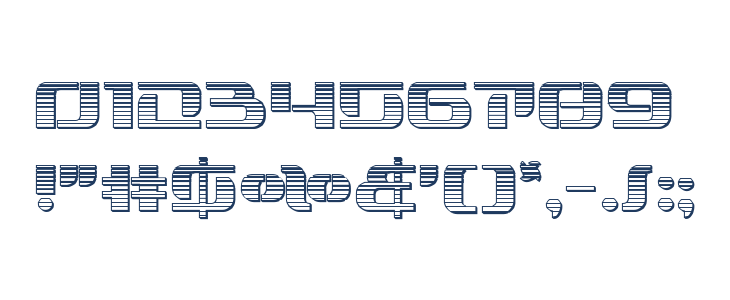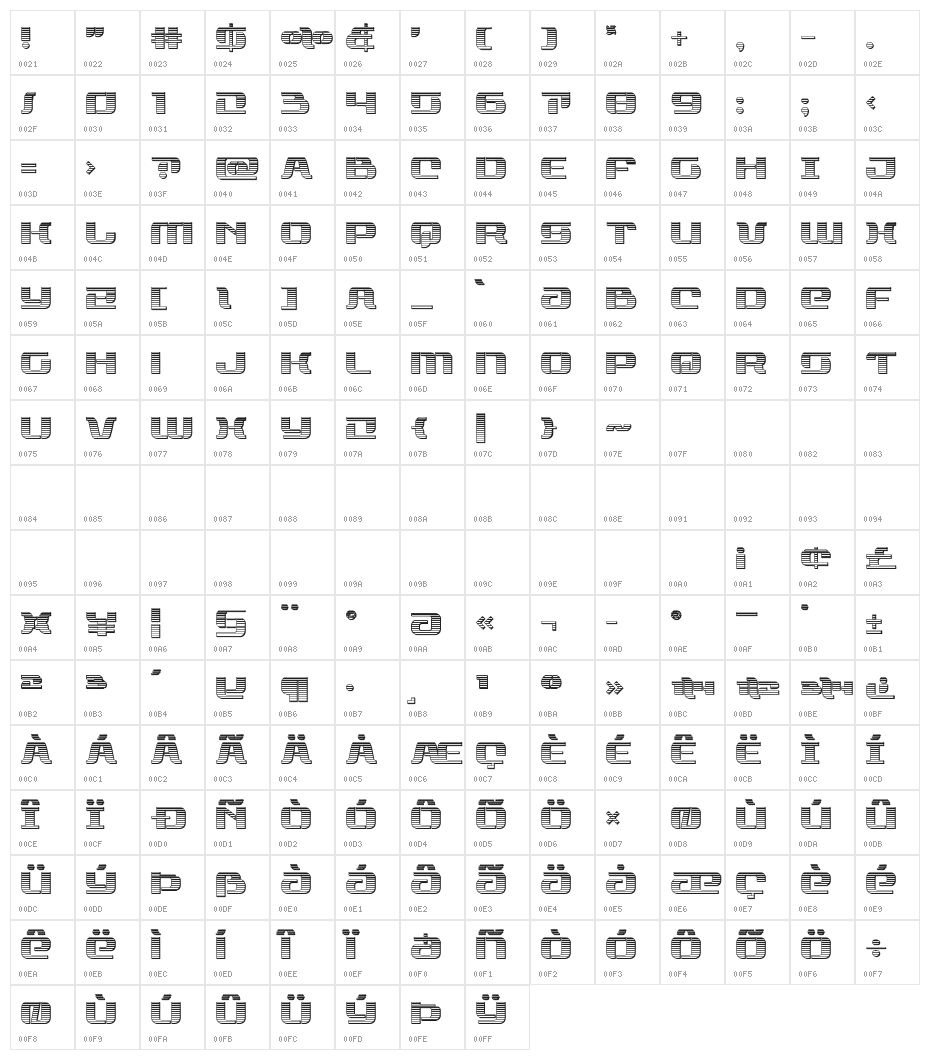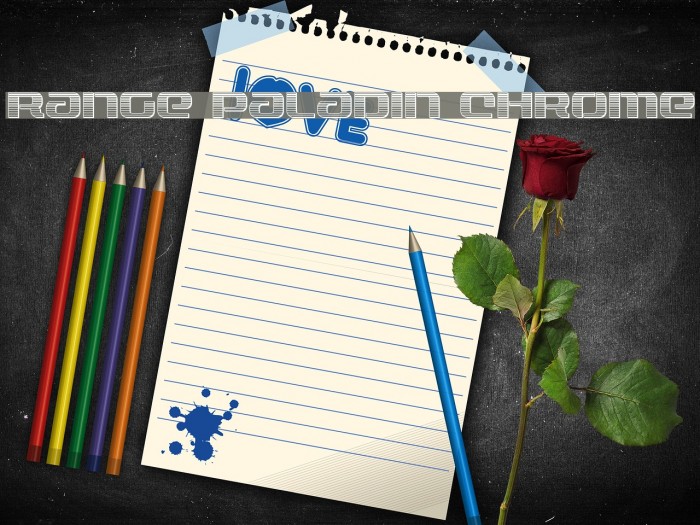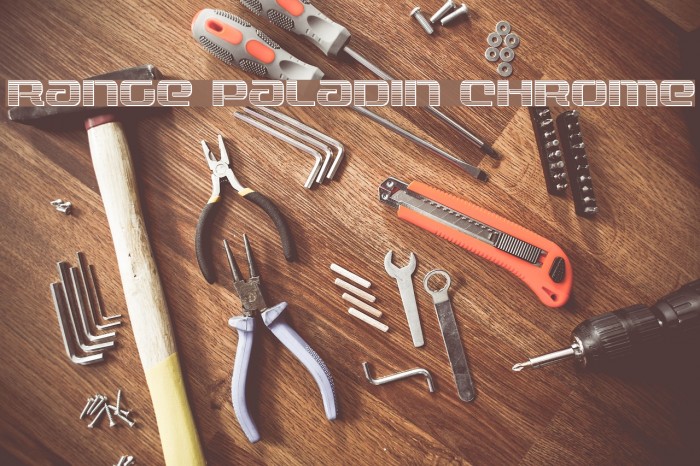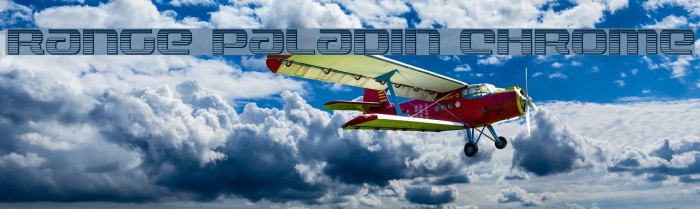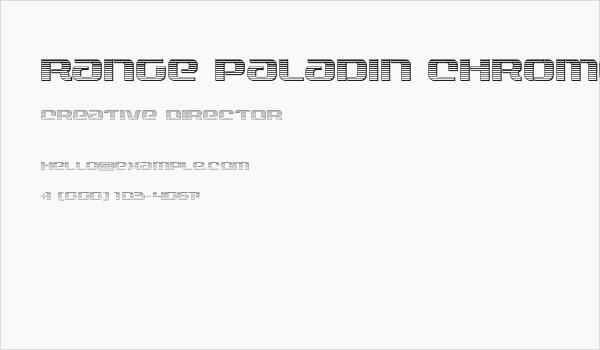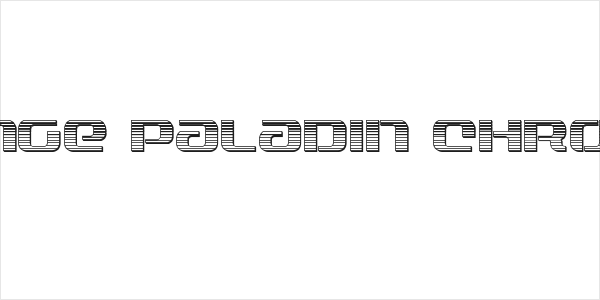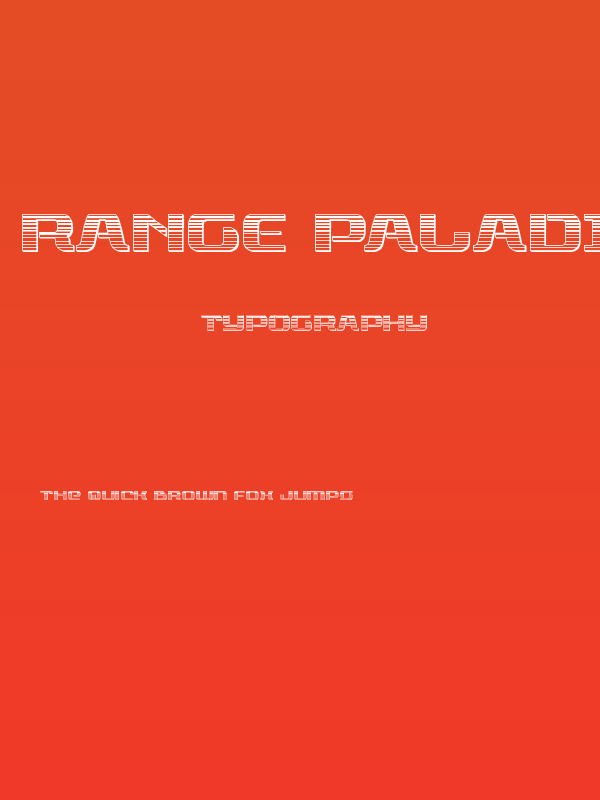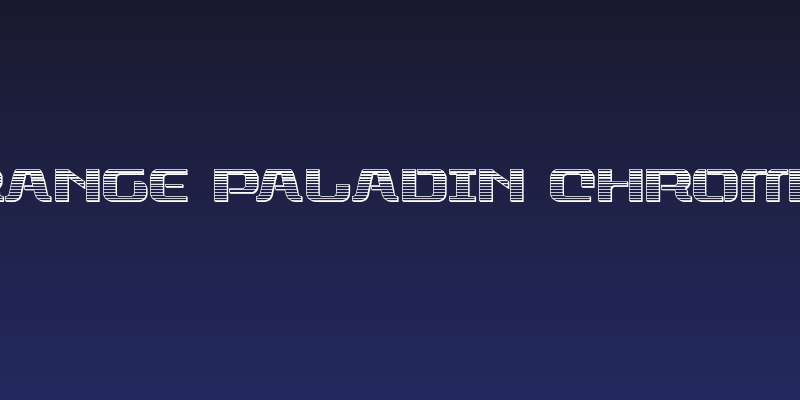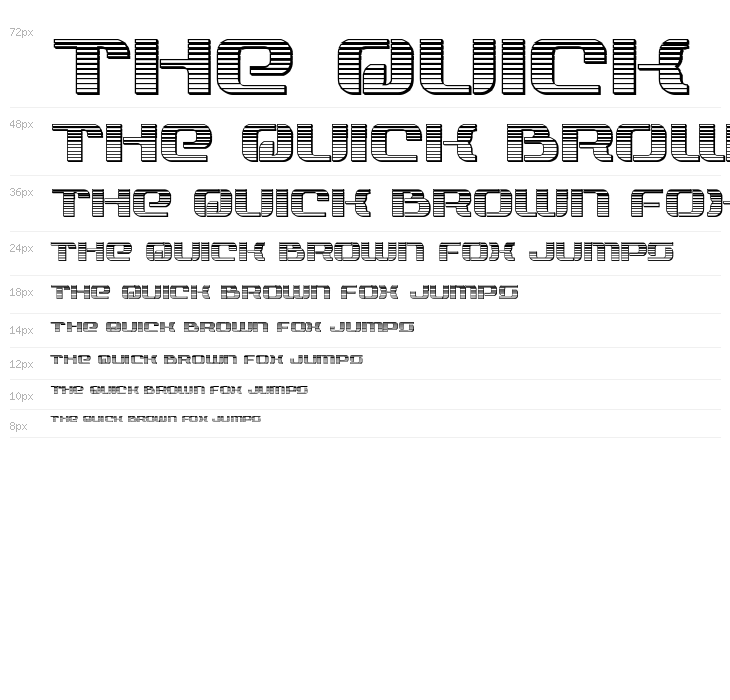
Range Paladin Chrome Font
Range Paladin Chrome Description
This font features a unique, futuristic design with a series of parallel lines creating a striped effect within each character. The letters are bold and geometric, with a strong emphasis on horizontal lines that give it a dynamic, tech-inspired appearance. The uppercase and lowercase letters maintain a consistent style, while the numerals and special characters integrate seamlessly with the overall design. The font's distinct look makes it ideal for projects that require a modern, digital aesthetic.
| Proposed Projects | Ideal for technology branding, sci-fi posters, video game titles, and digital media. |